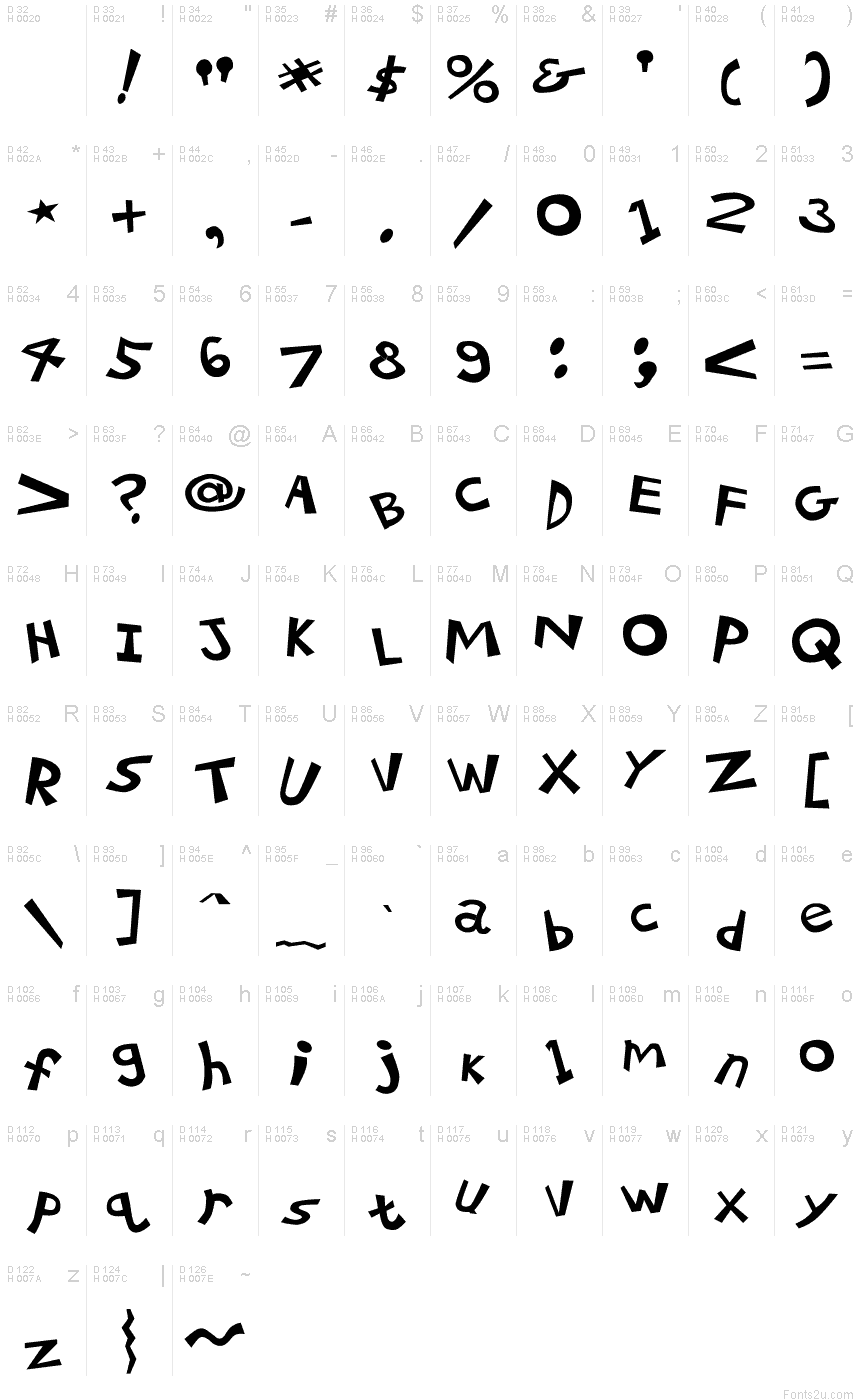
21 Kilobyte Salute
21 Kilobyte Salute is an eye-catching display font that exudes a playful, comic-inspired aesthetic. Designed by Eric Perlin, this font's distinct character is evident in its bold, angular letterforms and unconventional spacing. Its retro-futuristic vibe lends itself well to a variety of design applications, from vintage-inspired branding to attention-grabbing headlines. The font's unique personality and high legibility make it a versatile choice for both digital and print media, able to add a touch of whimsy and visual interest to any project.
The font's distinctive style and strong personality make it a standout choice for designers seeking to create a bold, memorable visual impact. Its versatility allows it to seamlessly integrate into a wide range of design contexts, from vibrant posters and packaging to dynamic web interfaces and eye-catching illustrations.